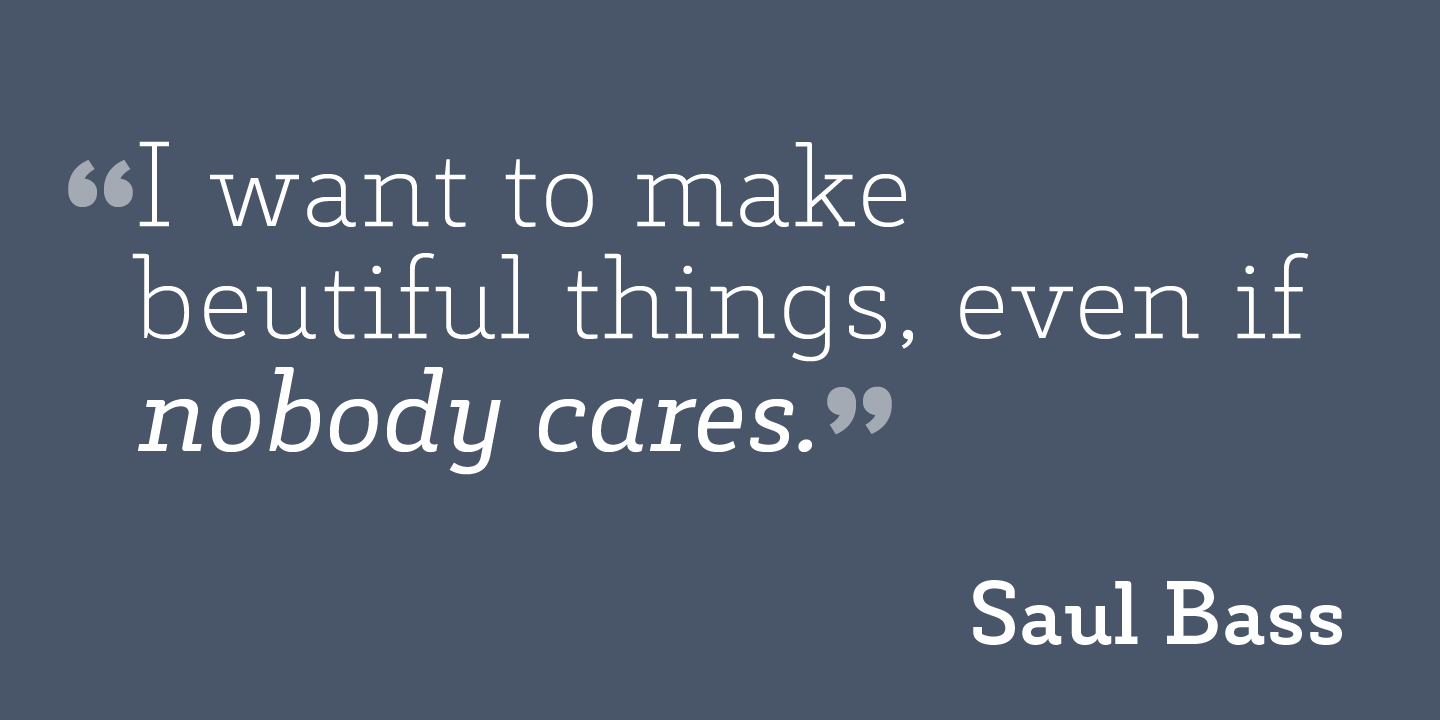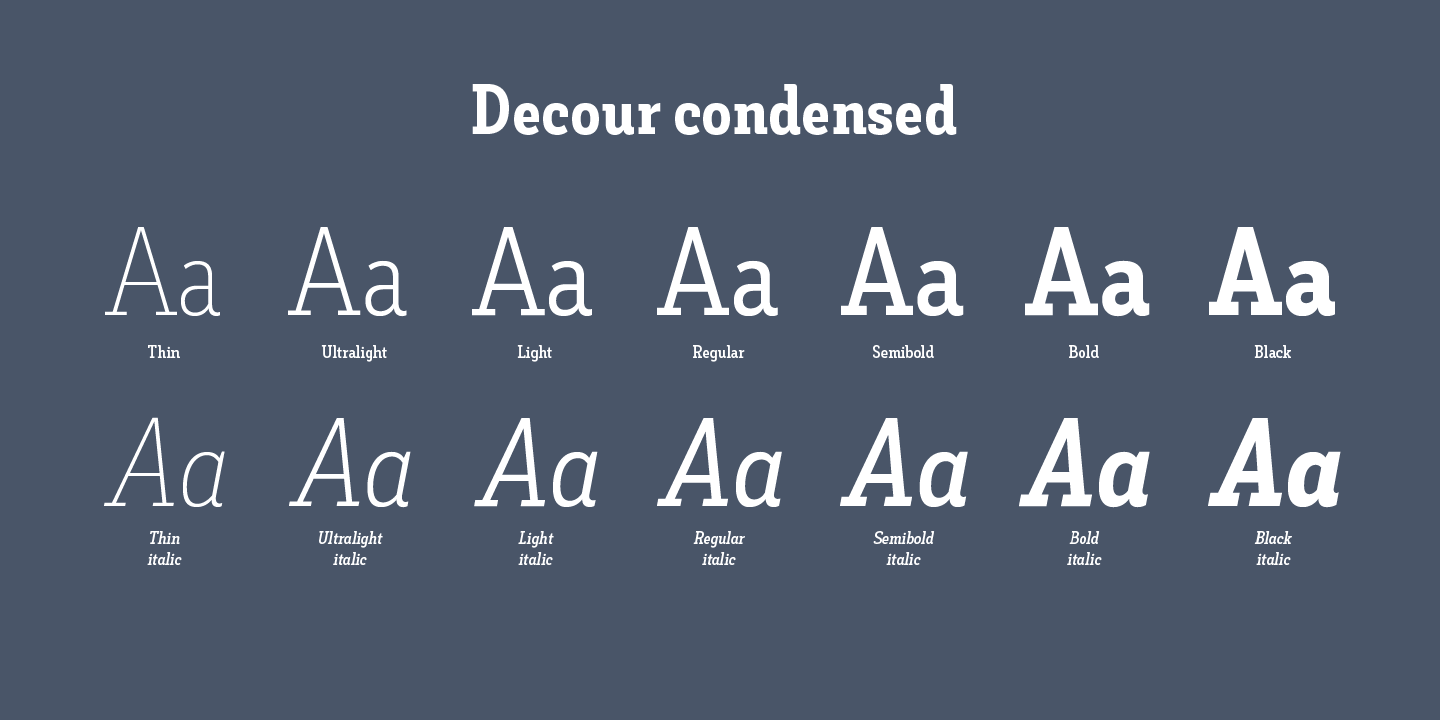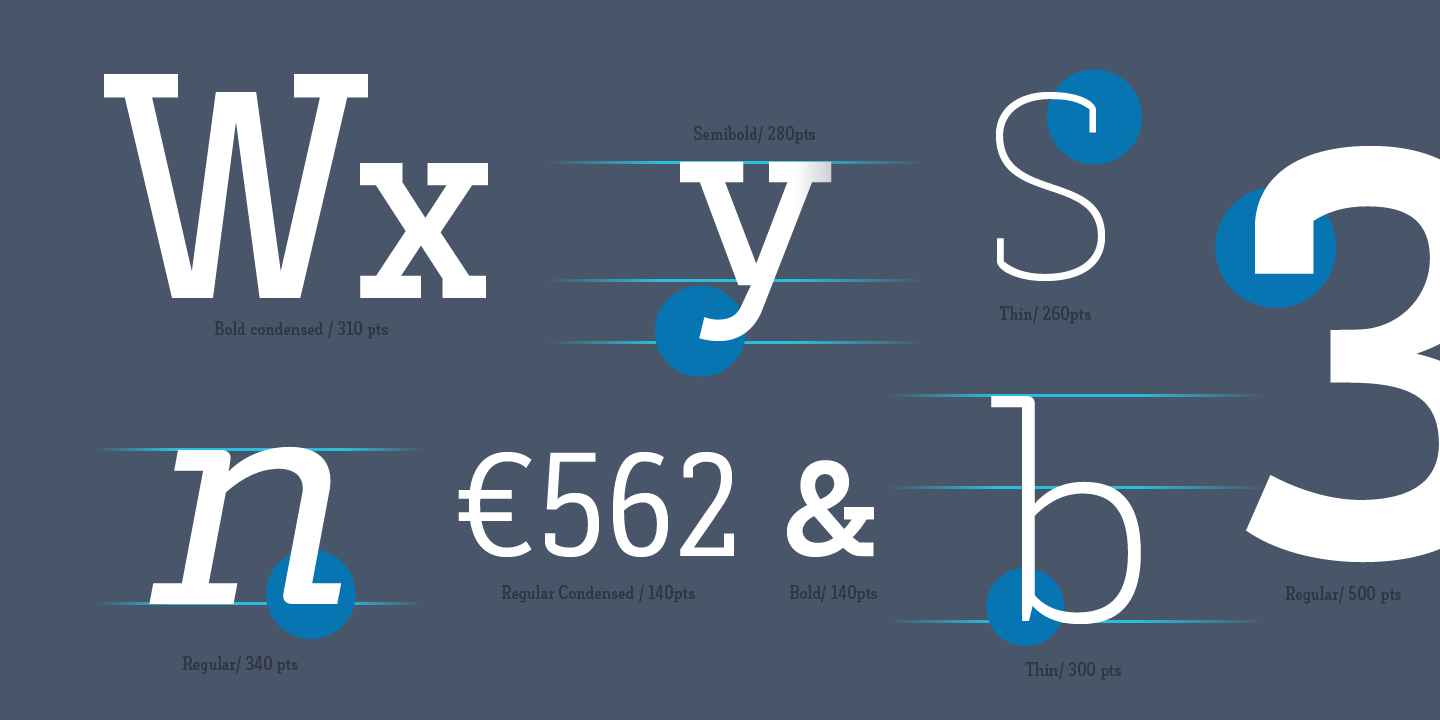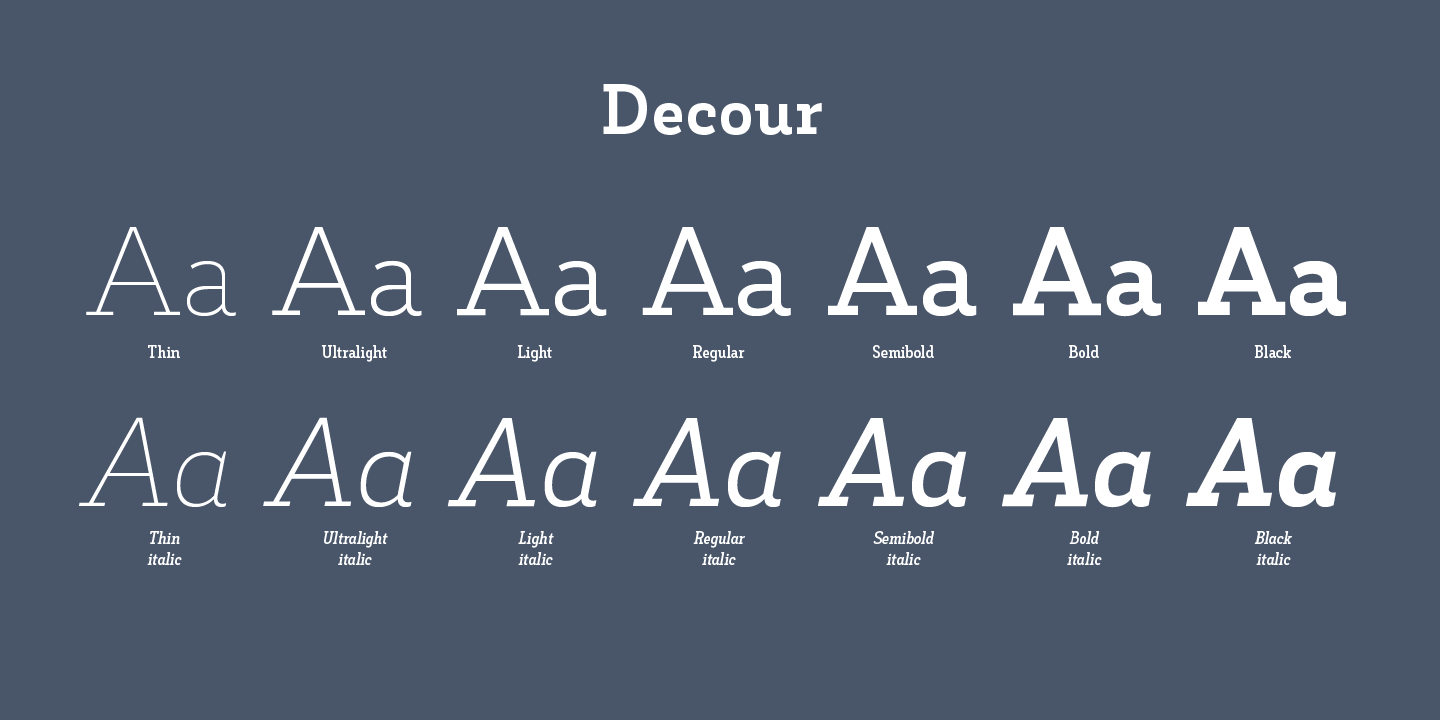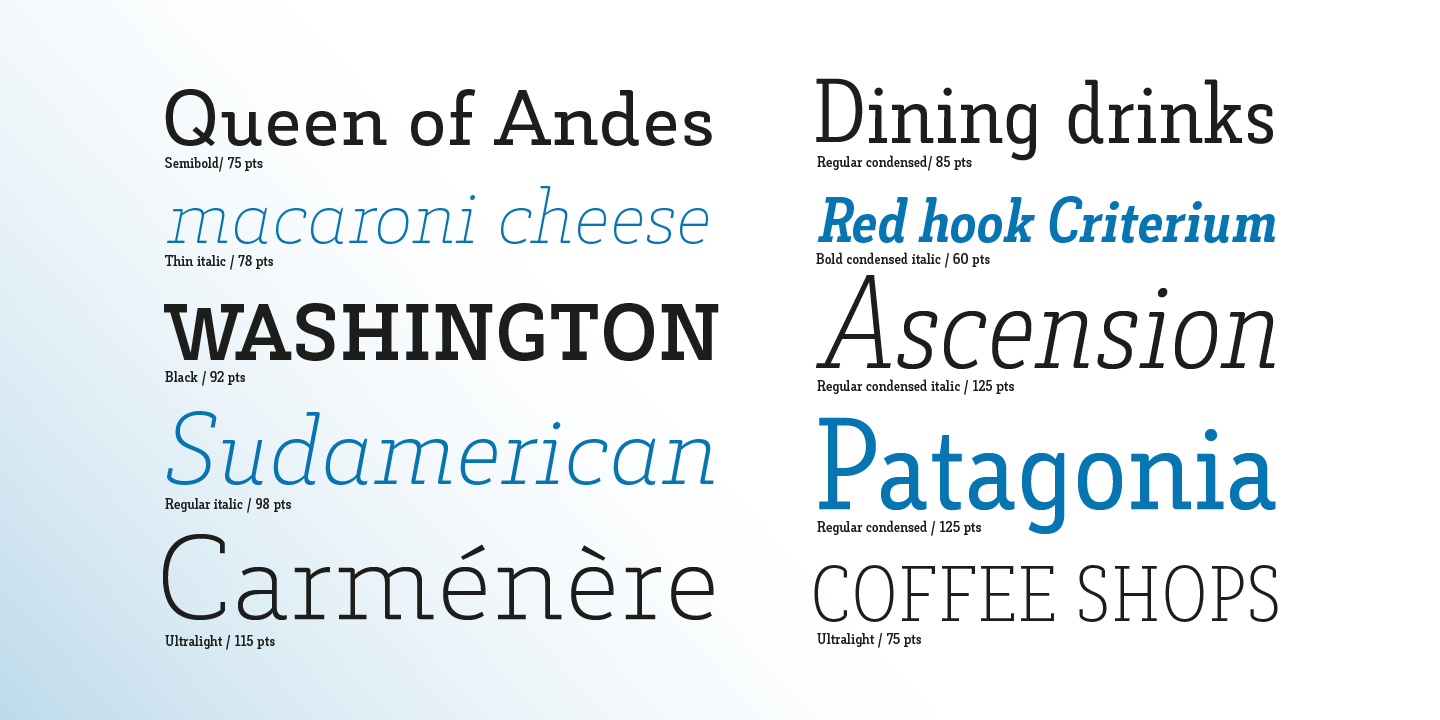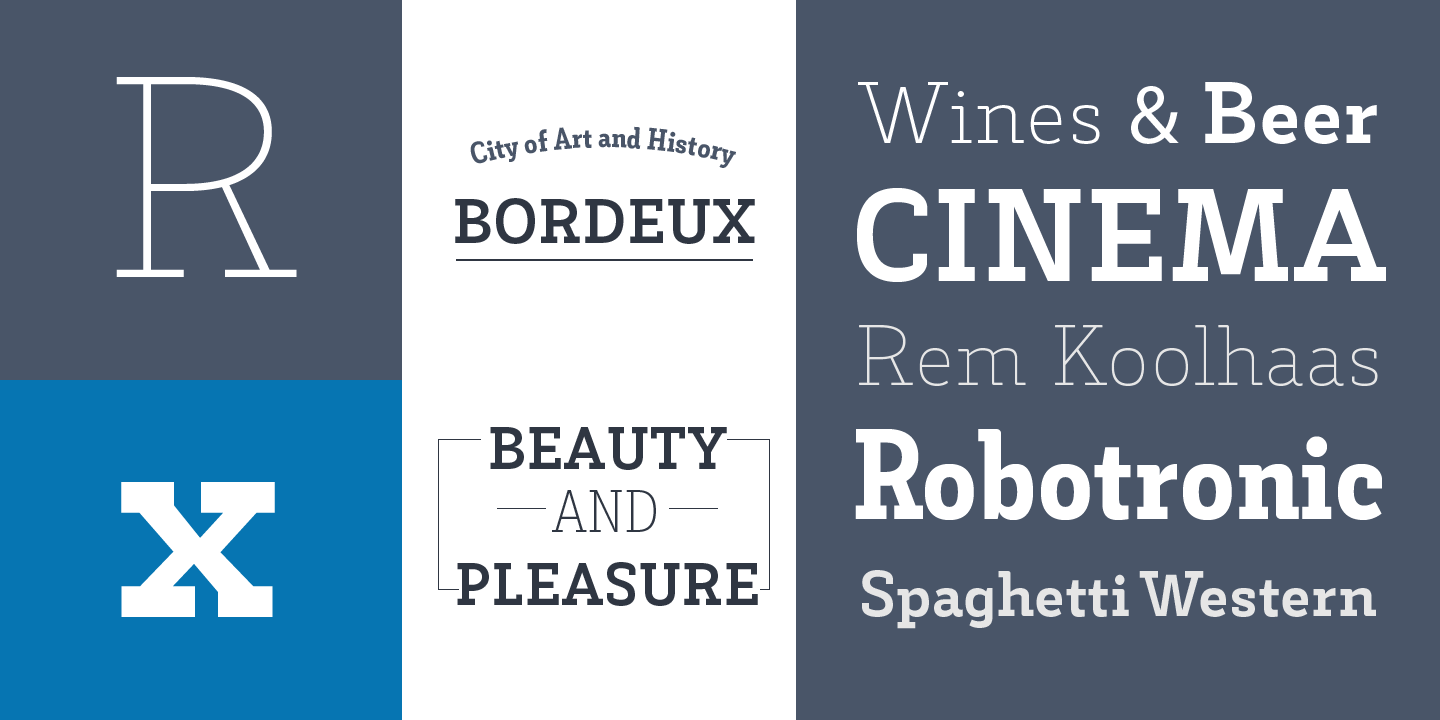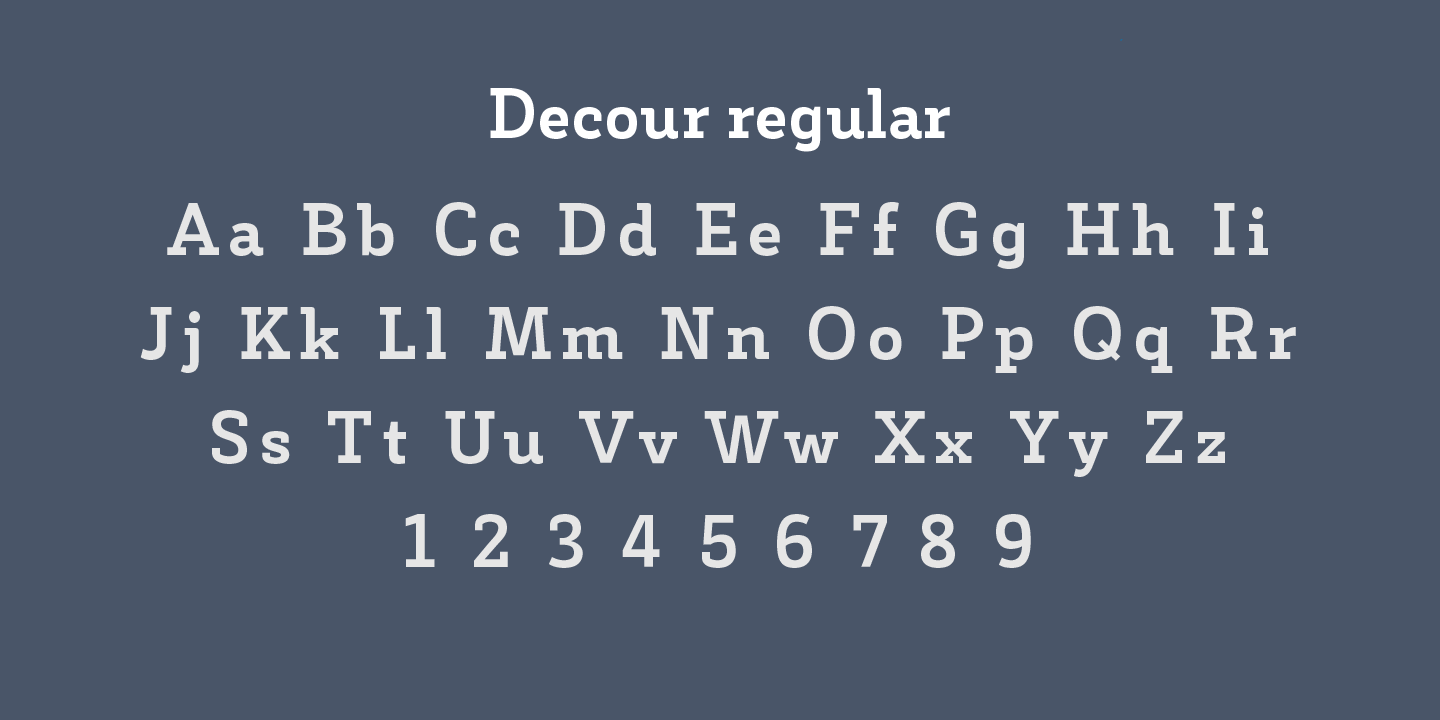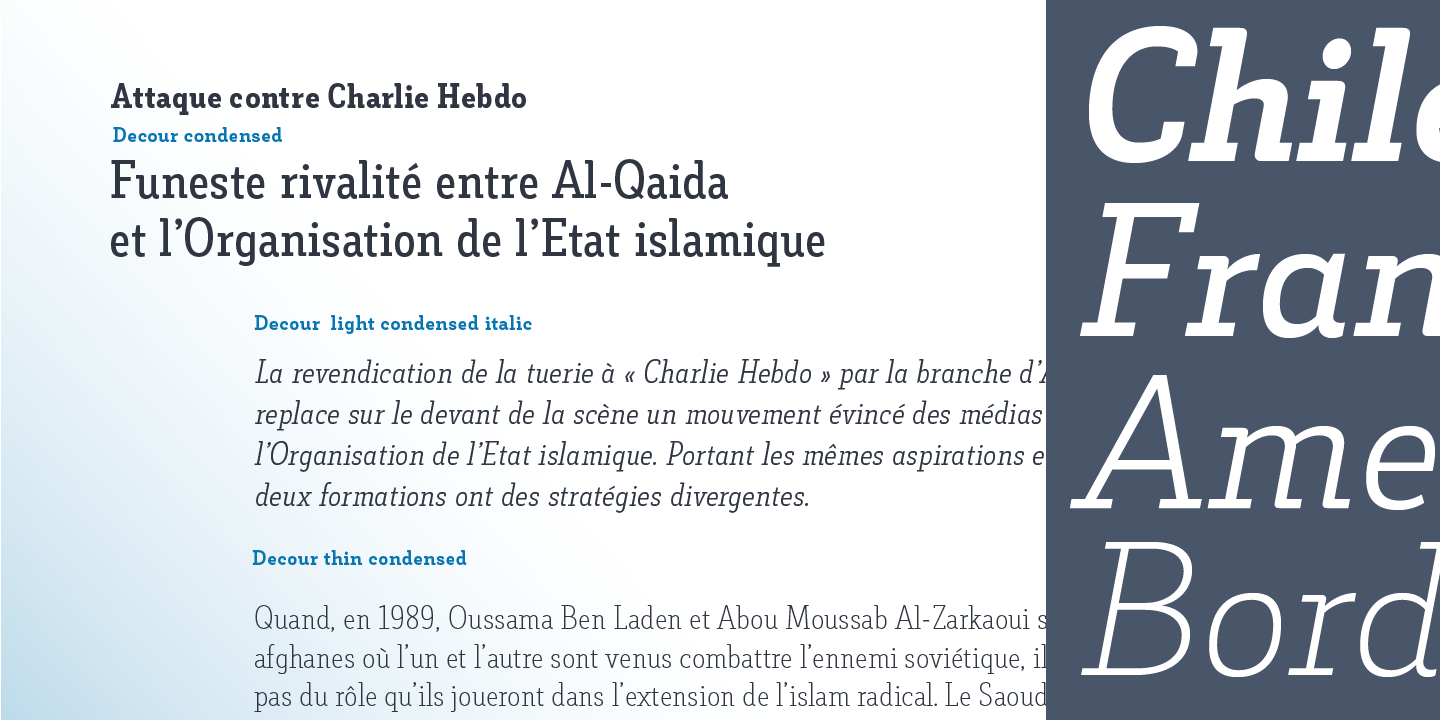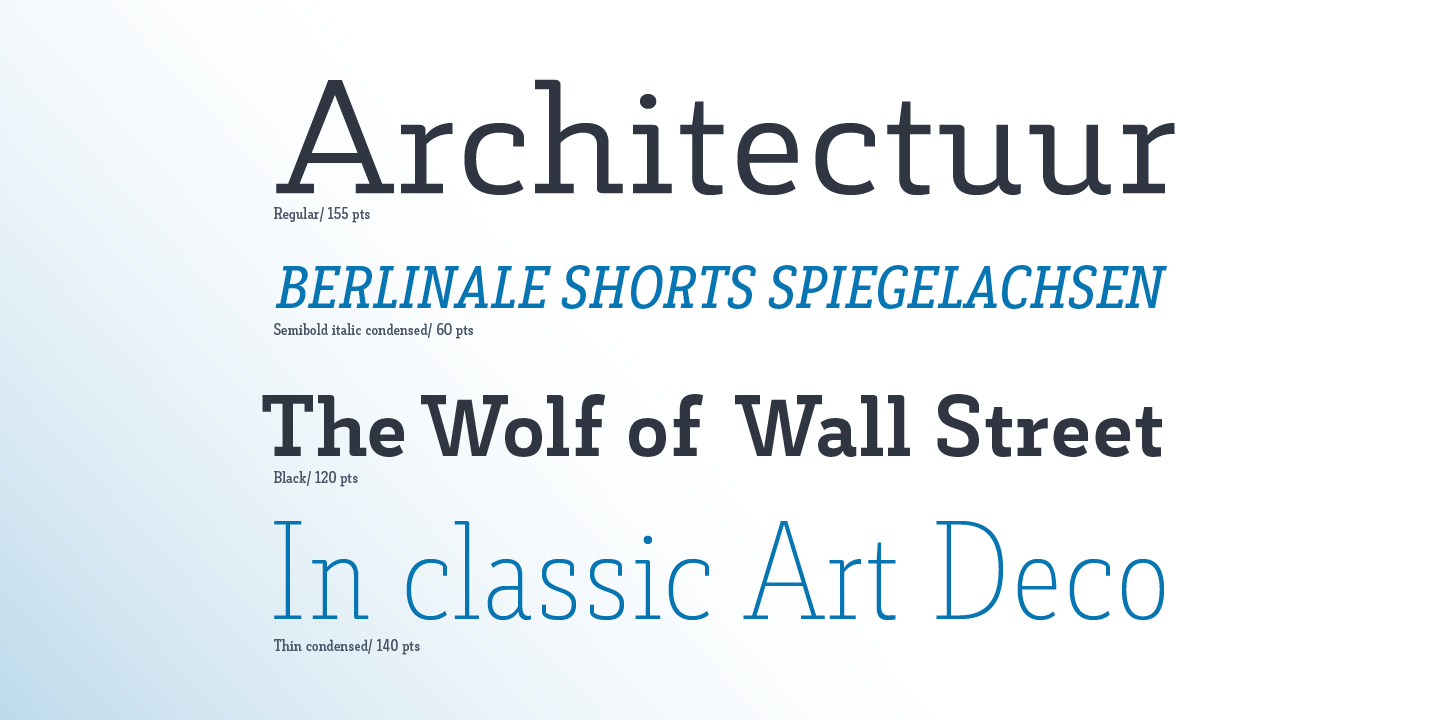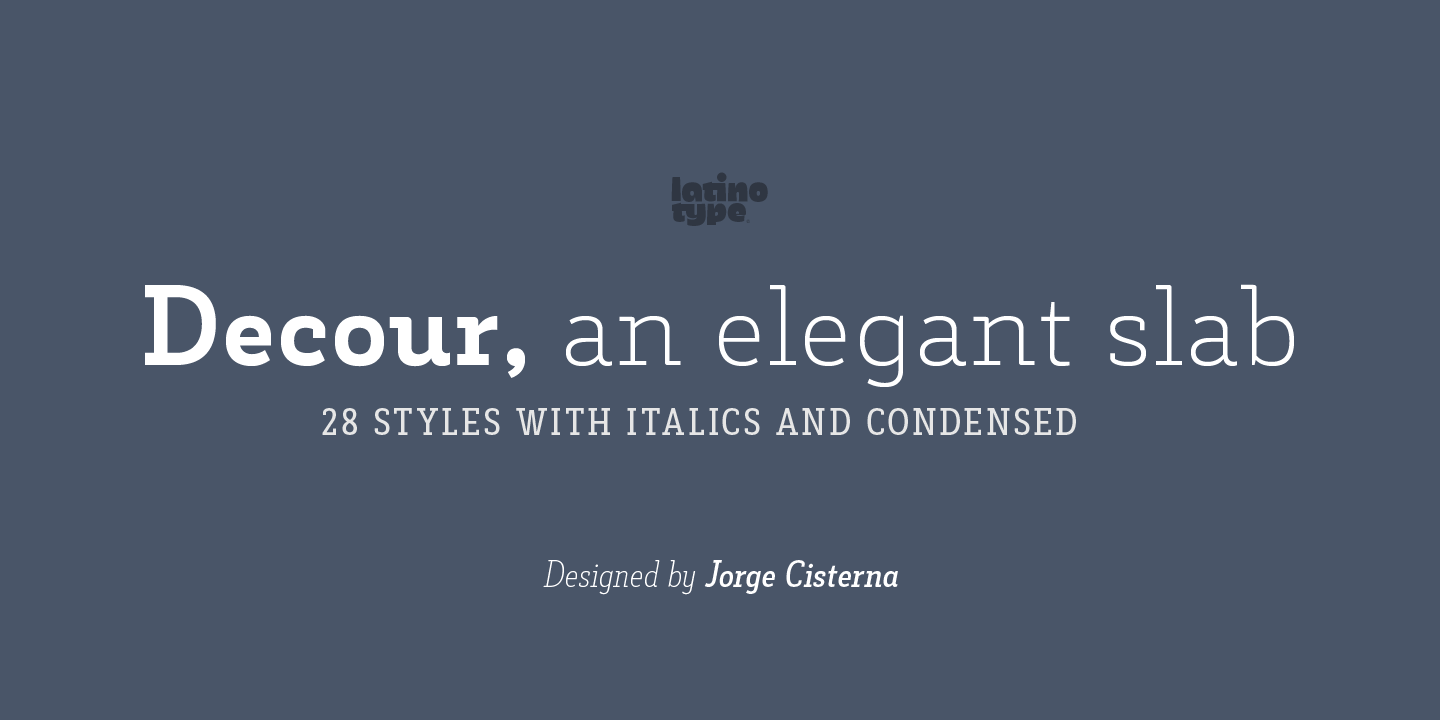
Decour Complete Family (28 fonts)
With 28 fonts in the family, Decour is highly versatile. It can be used in publishing, packaging, signage, and retailing.